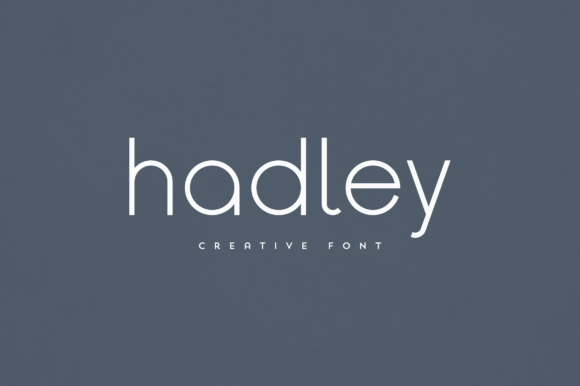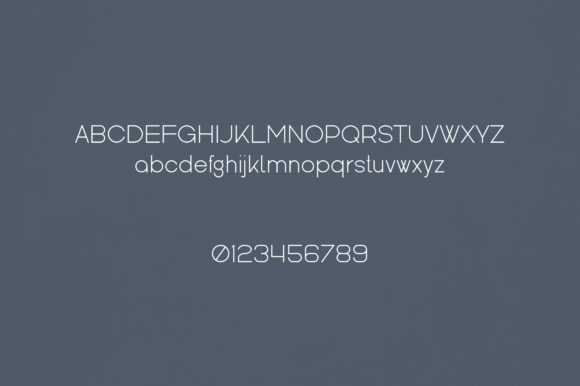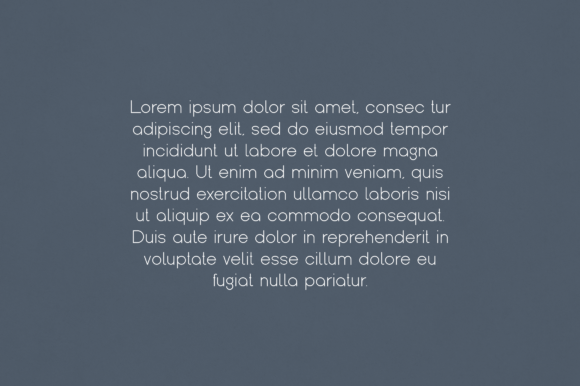
Hadley Font: A Minimalist Sans Serif for Modern Logo Design
About the Hadley Font
The Hadley Font is here to transform your projects with its distinctive character and style. Hadley is an elegant and versatile sans serif font that will make your typography truly unique! It will enchant every logo, branding, headline, or plain text!
This font is perfect for branding projects, home-ware designs, product packaging, magazine headers – or simply as a stylish text overlay to any background image.
Hadley’s elegant yet versatile nature makes it ideal for headlines, branding applications, and short text blocks on packaging or posters. Its refined curves and balanced proportions lend themselves well to high-end product designs and sophisticated brand identities. However, its less-than-optimal x-height makes it unsuitable for large bodies of text or UI elements where readability is paramount.
For effective pairings, consider complementing Hadley’s elegance with a contrasting yet harmonious typeface. A geometric sans-serif like Montserrat for body copy provides a clean, modern counterpoint, or a warmer, more traditional serif such as Garamond adds a touch of classic sophistication. Avoid pairing it with overly playful or heavily stylized fonts; maintaining a sense of visual order is key.
Hadley projects a sophisticated and modern personality, best suited for brands emphasizing quality, craftsmanship, and timeless style. Think luxury goods, high-end fashion, or architectural firms. Its inherent elegance ensures a polished and refined aesthetic.